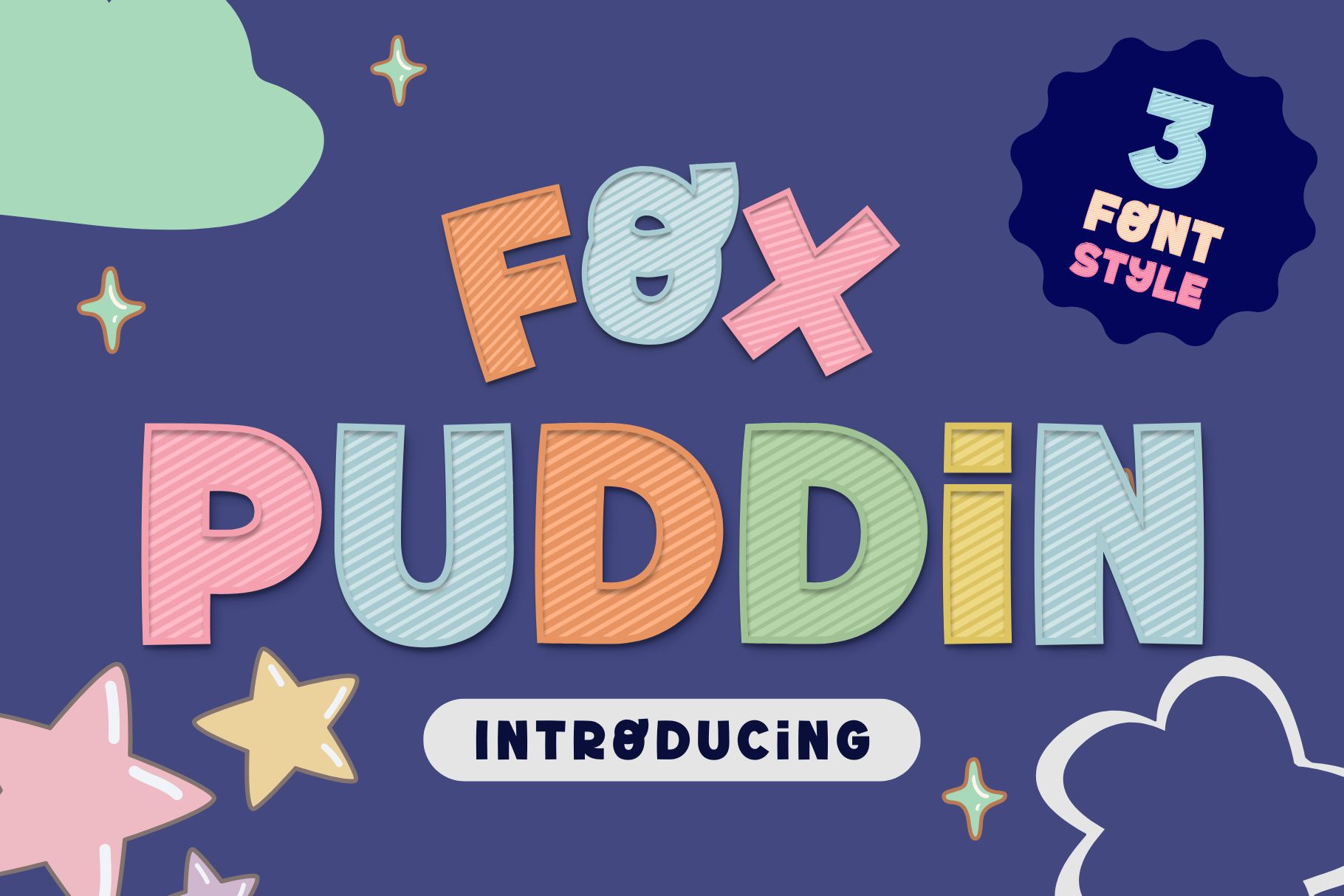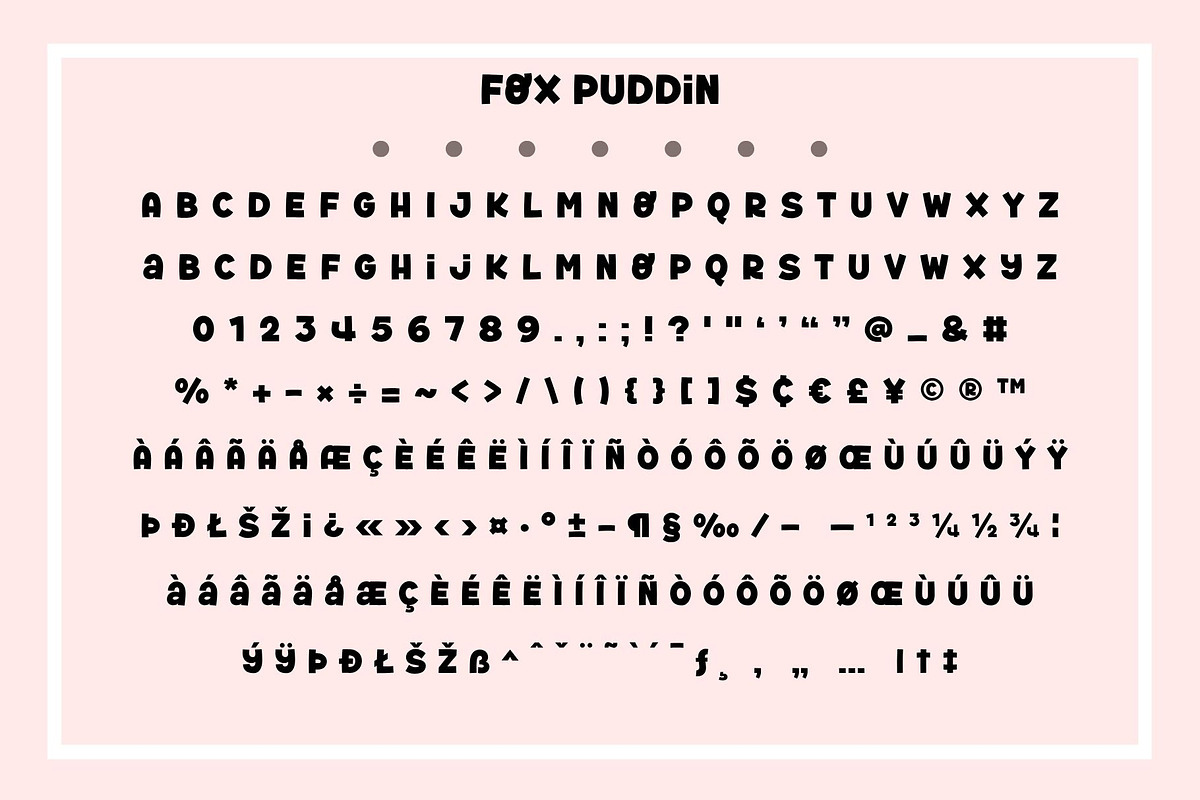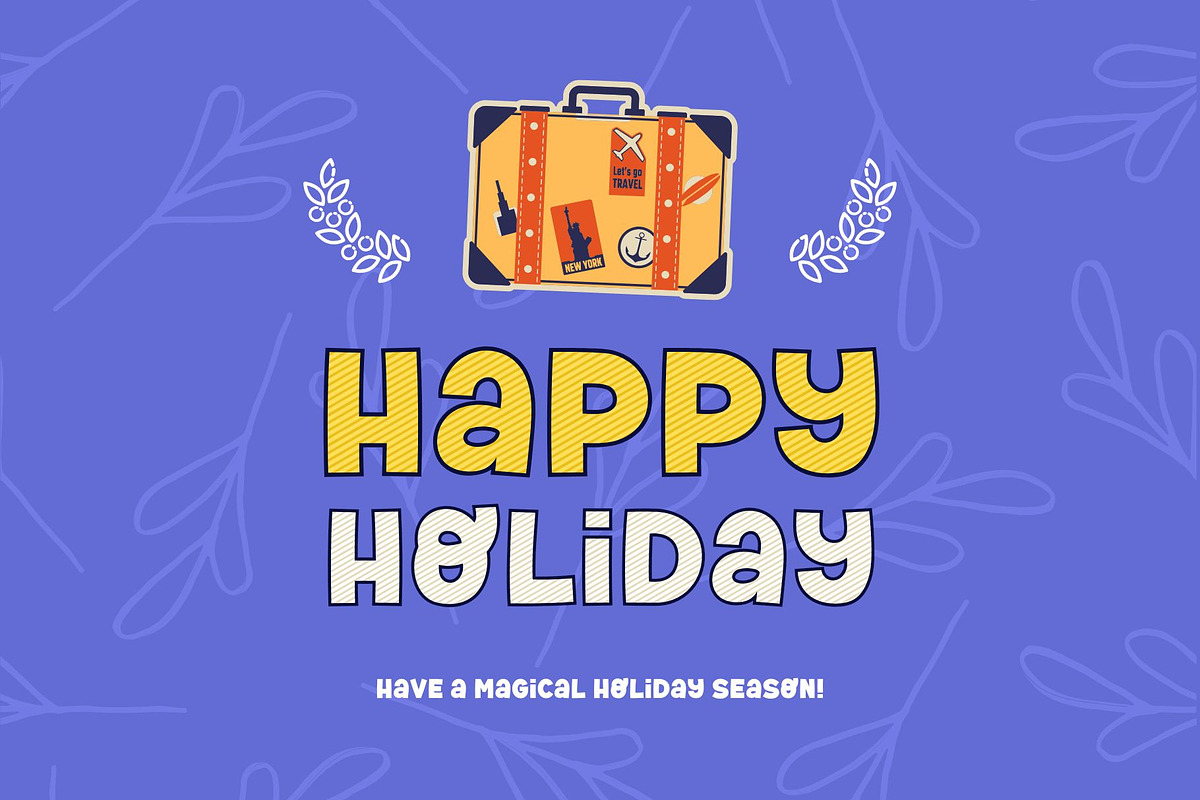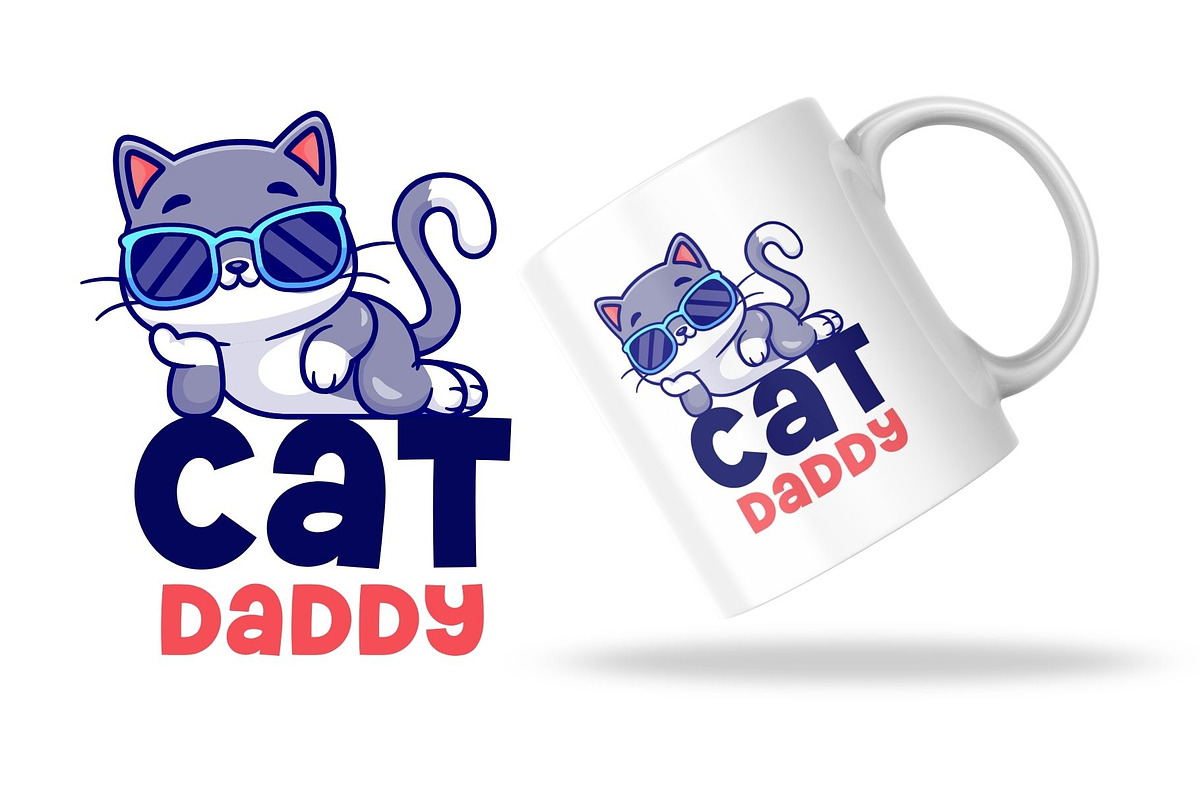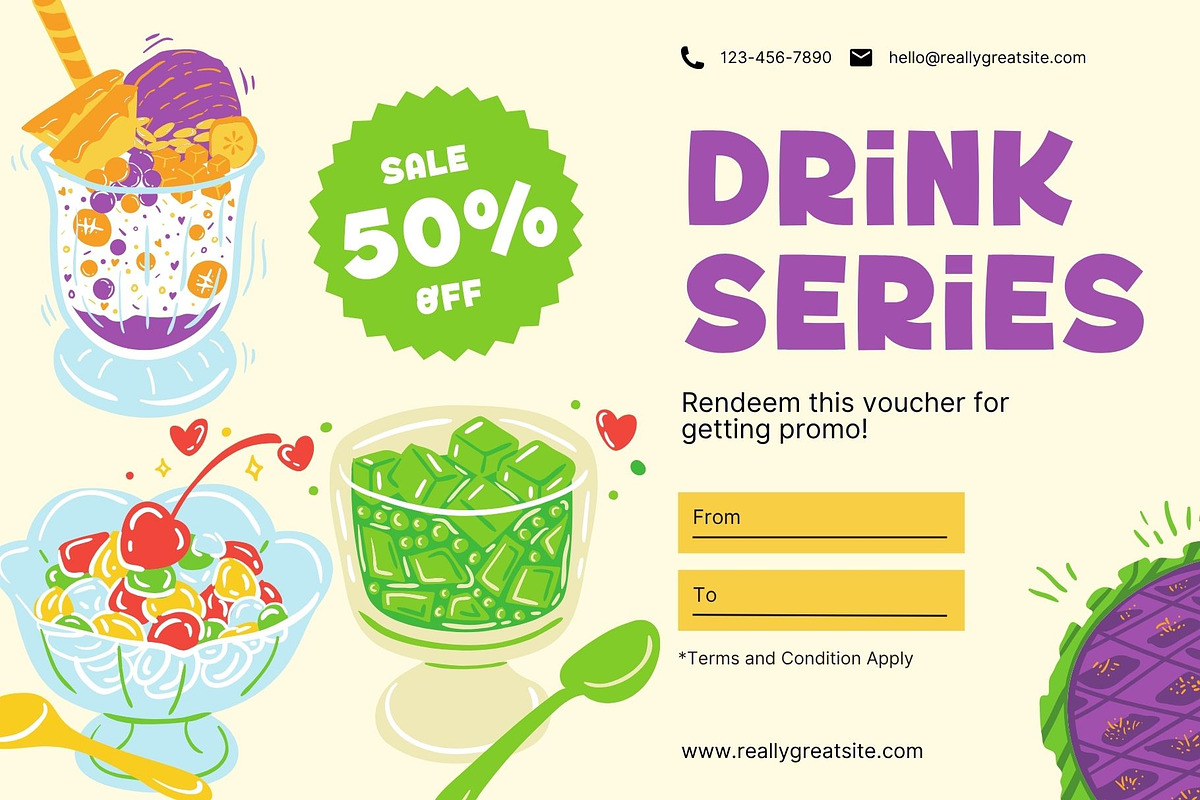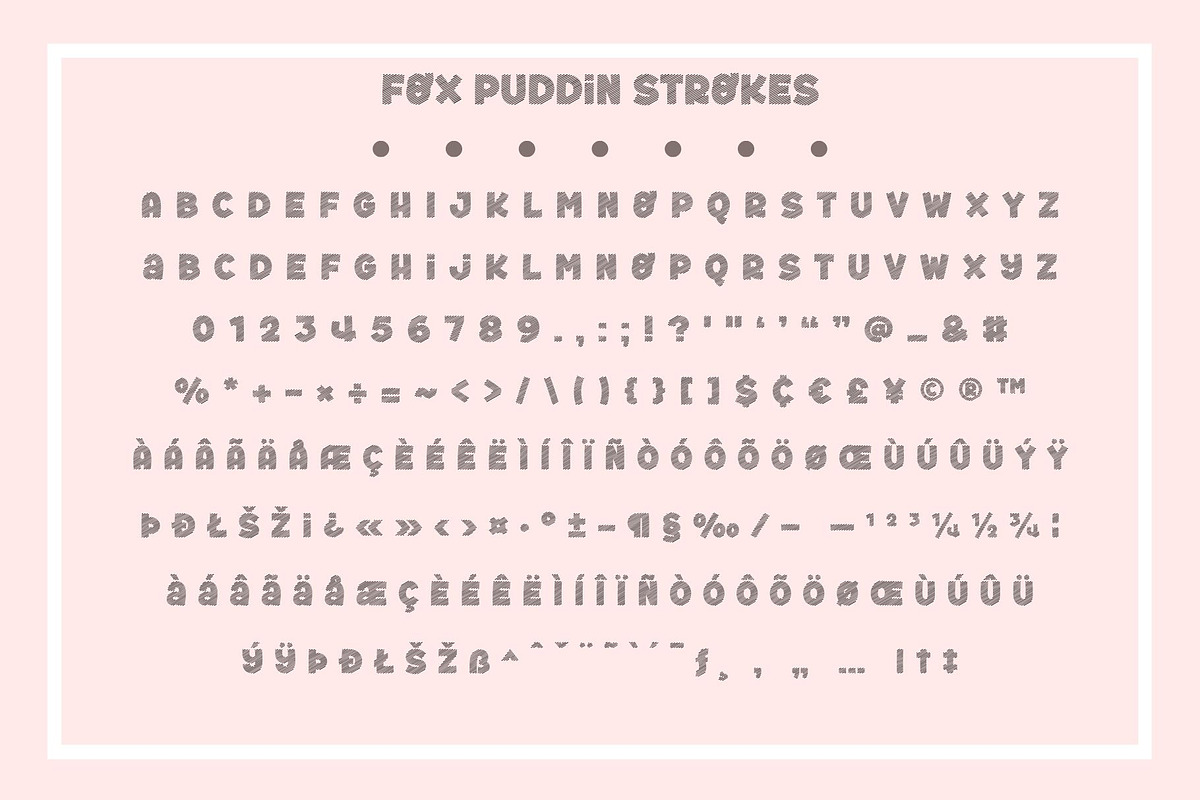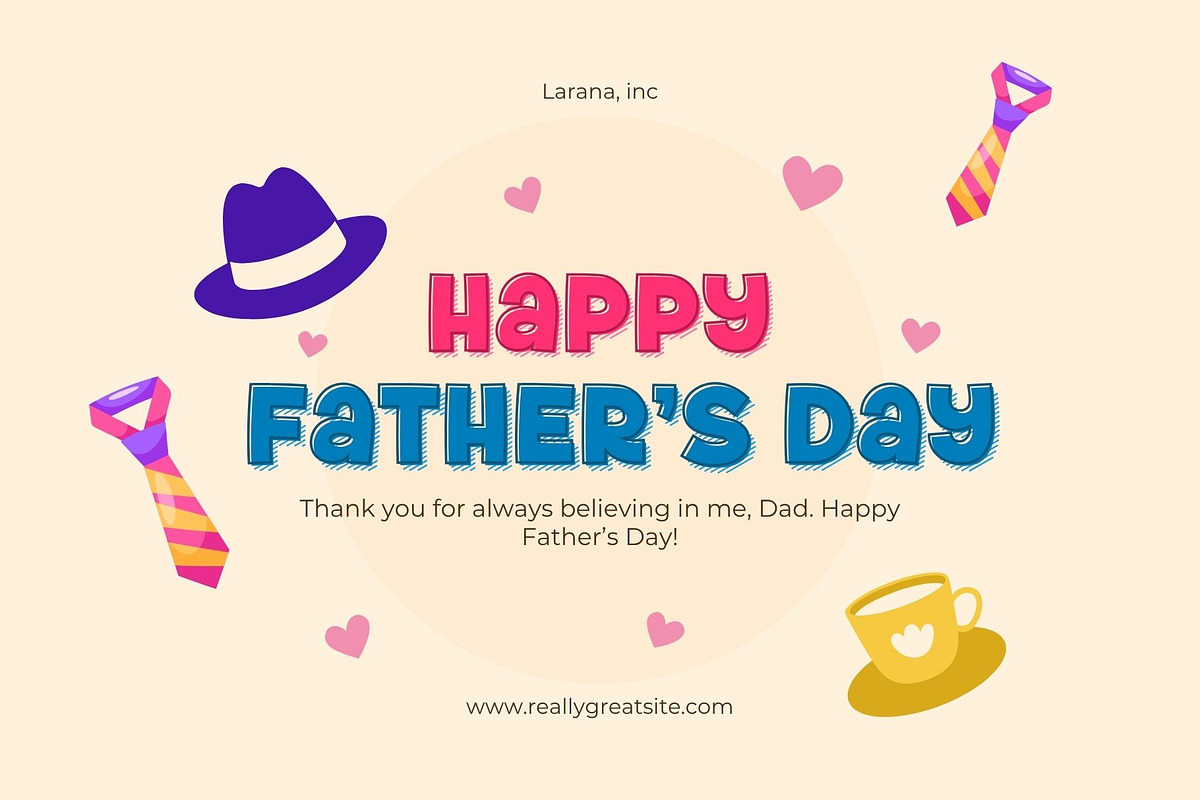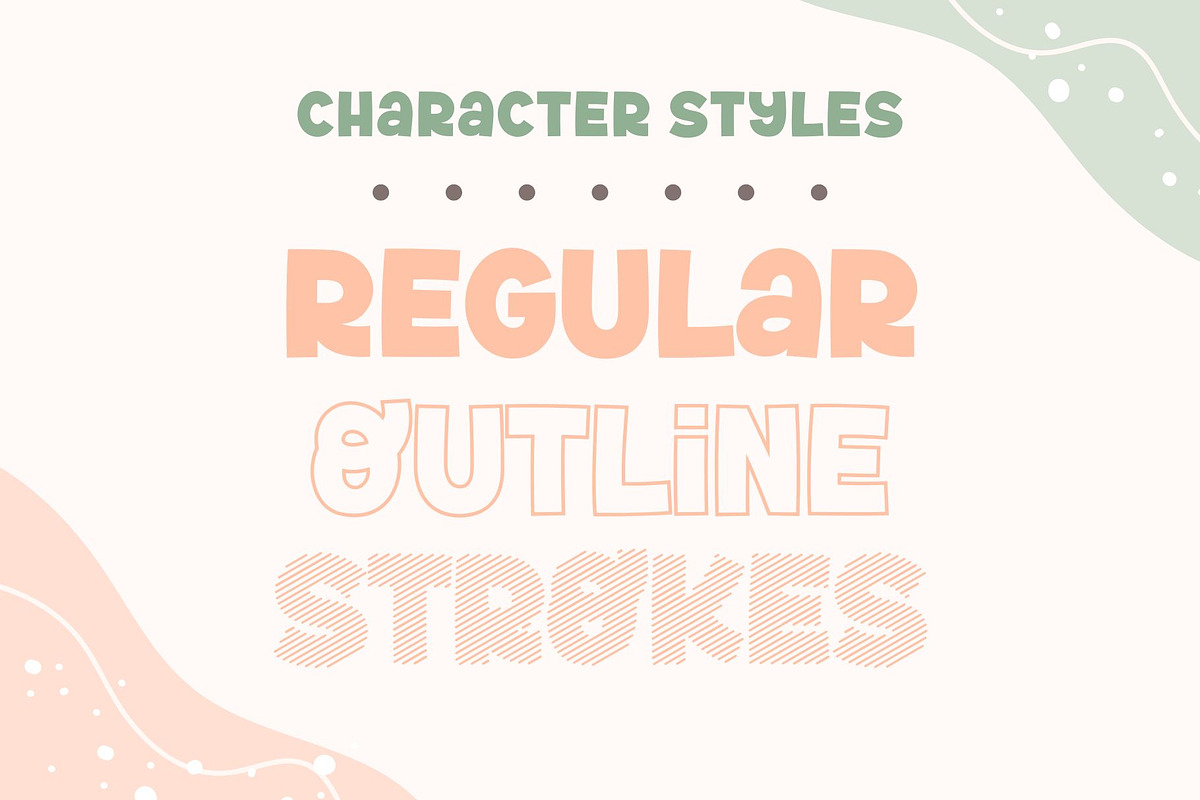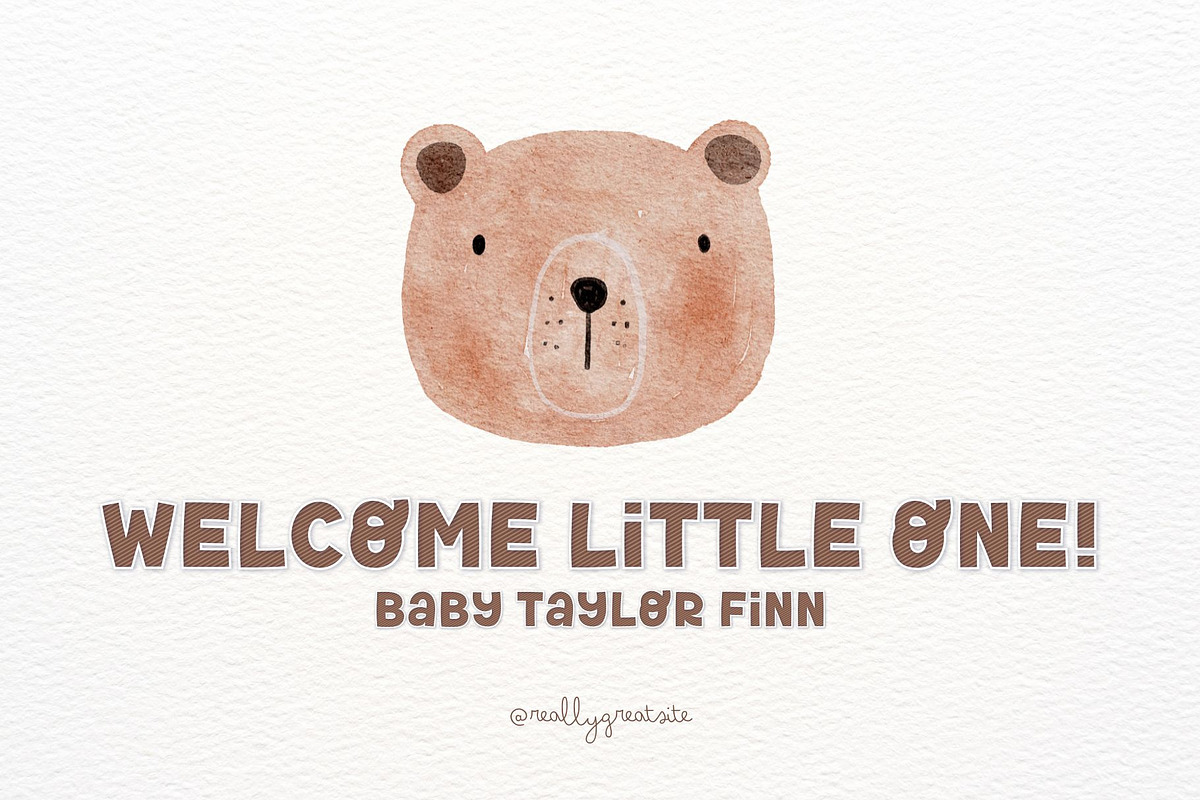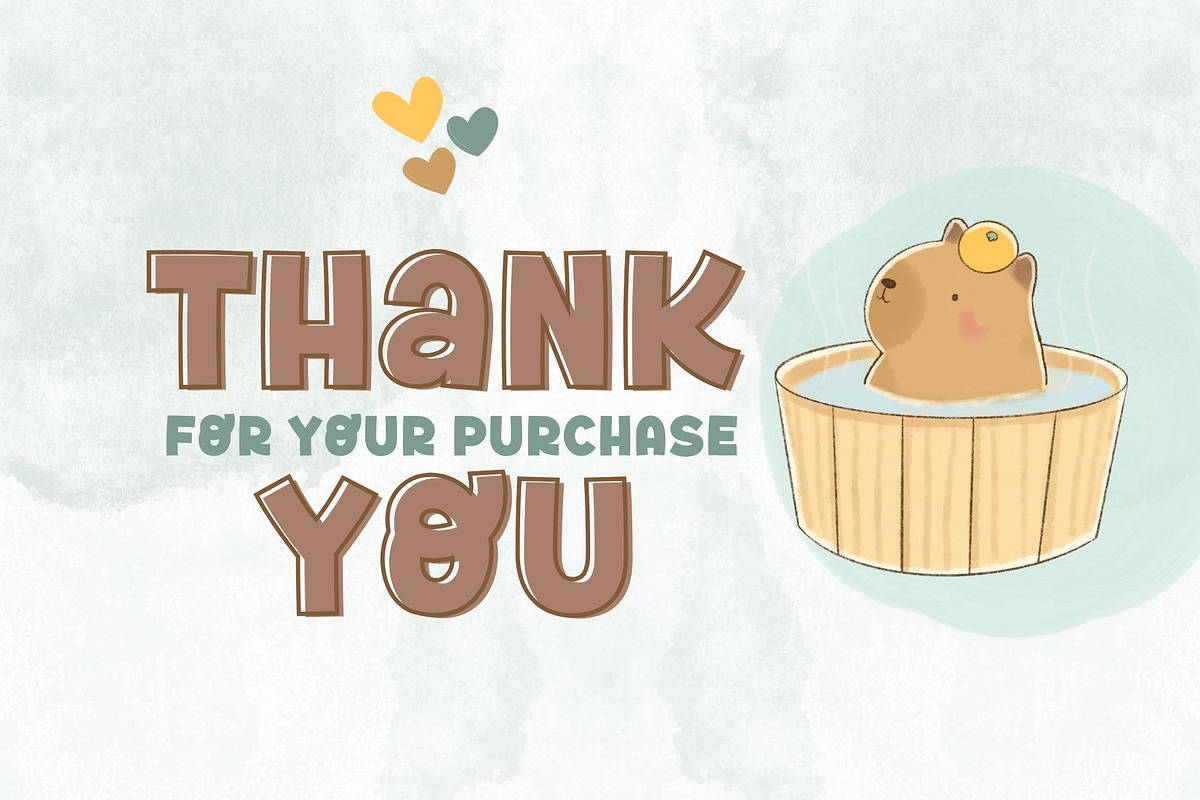
Fox Puddin: 3 Font Styles
Fox Puddin – Playful Layered Font (3 Styles)
Say hello to Fox Puddin – a fun, chunky, and cheerful display font that’s bursting with personality! Perfect for kids' projects, playful branding, school designs, stickers, greeting cards, and everything cute and colorful.
🎉 This font family includes 3 styles to mix and match:
✨ Regular – A clean and bold look, great for headlines and standout text.
✨ Strokes – A stylish, hand-drawn striped effect for a creative touch.
✨ Outline – Adds a clean and charming edge
💡 Pro Tip: Stack styles for a layered look! For example, use Strokes underneath Outline for a colorful, dimensional effect.
Let Fox Puddin sweeten your next project. Whether you’re working on children’s books, retro packaging, t-shirt graphics, posters, or party invitations, Fox Puddin brings energy and charm to every project